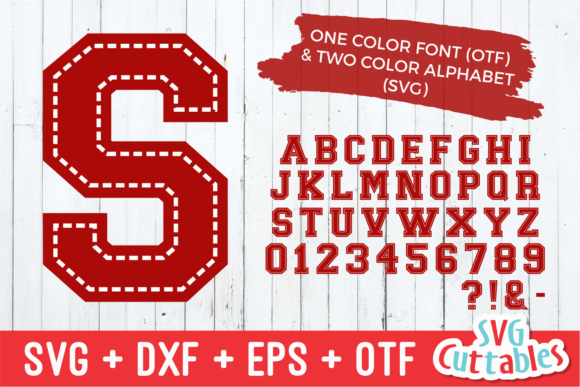
Introducing JP Sport Stitch, the ultimate slab serif font designed for volleyball jersey fonts! Created by SVG Cuttables, this font is a bold and assertive addition to any designer's toolkit.
The JP Sport Stitch font is perfect for all types of creative projects, from crafting and digital design to presentations and greeting cards. Its striking appearance and bold character make it ideal for capturing attention and making a statement.
Whether you're designing a volleyball jersey, creating a logo, or crafting a unique piece of artwork, this font will add a touch of flair and creativity to your project. With its sleek and stylish design, JP Sport Stitch is the perfect font for anyone looking to stand out from the crowd and make a lasting impression.